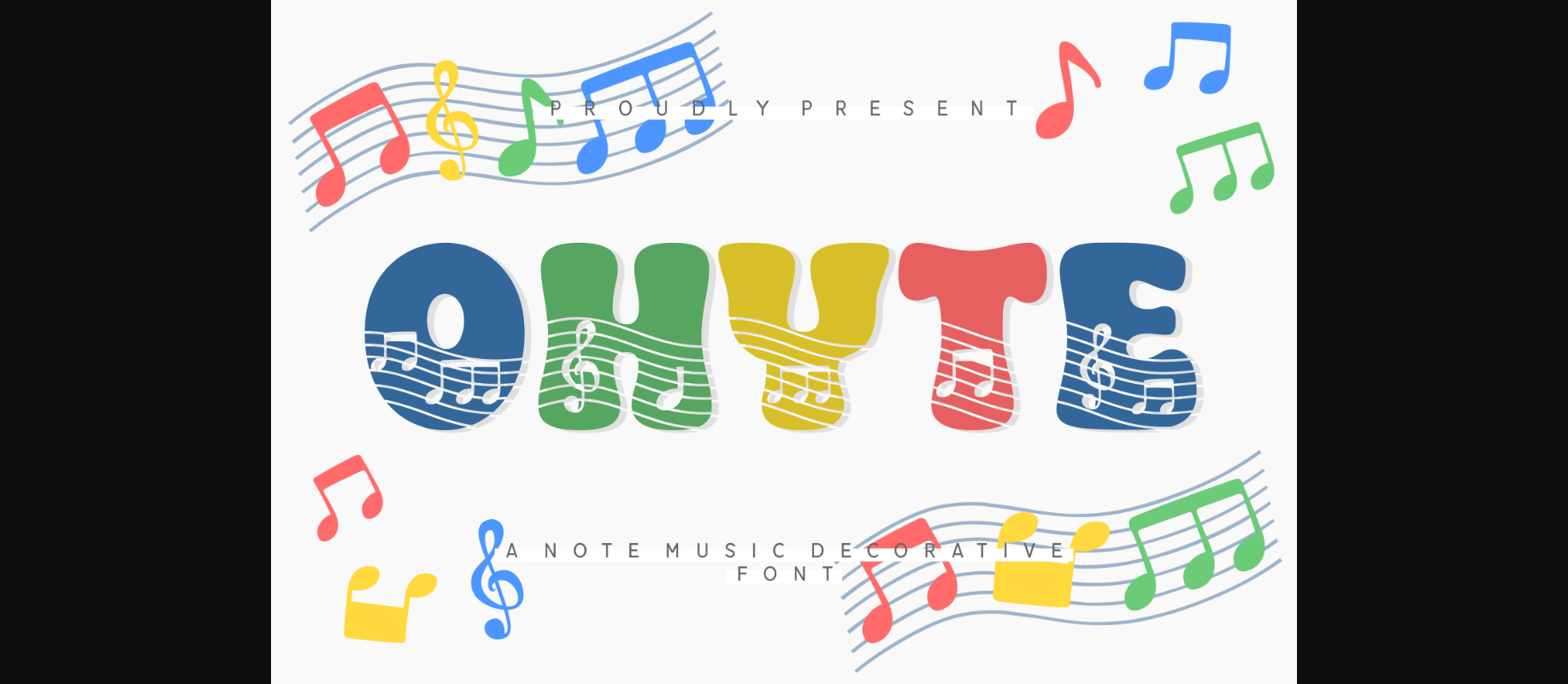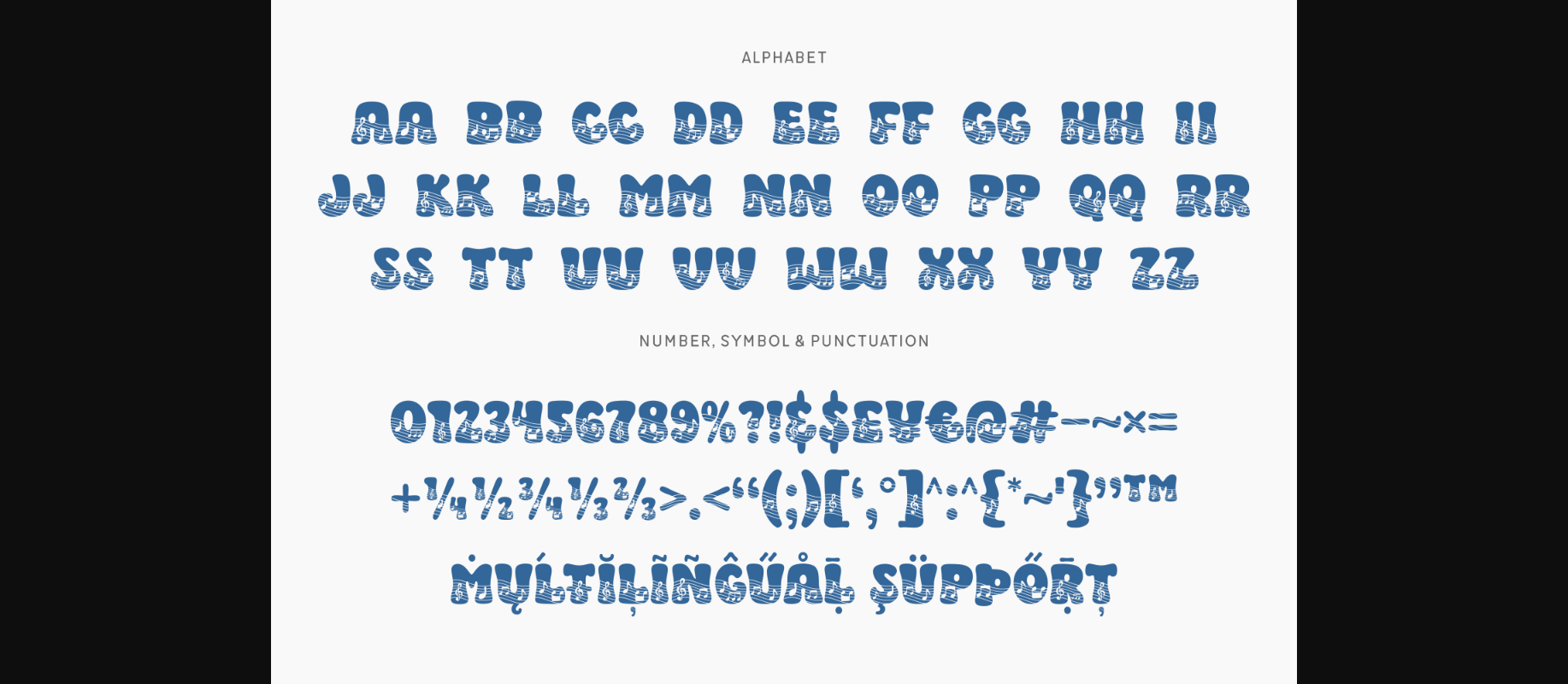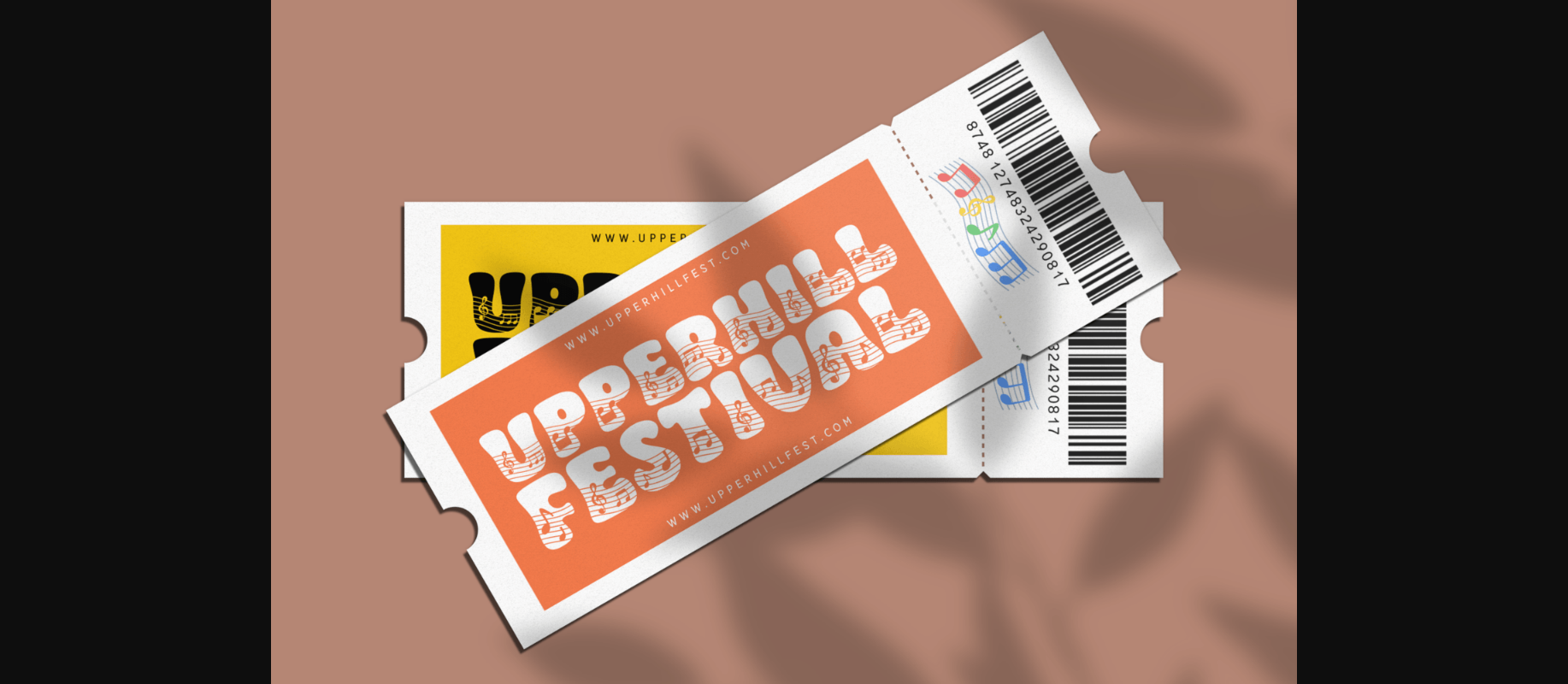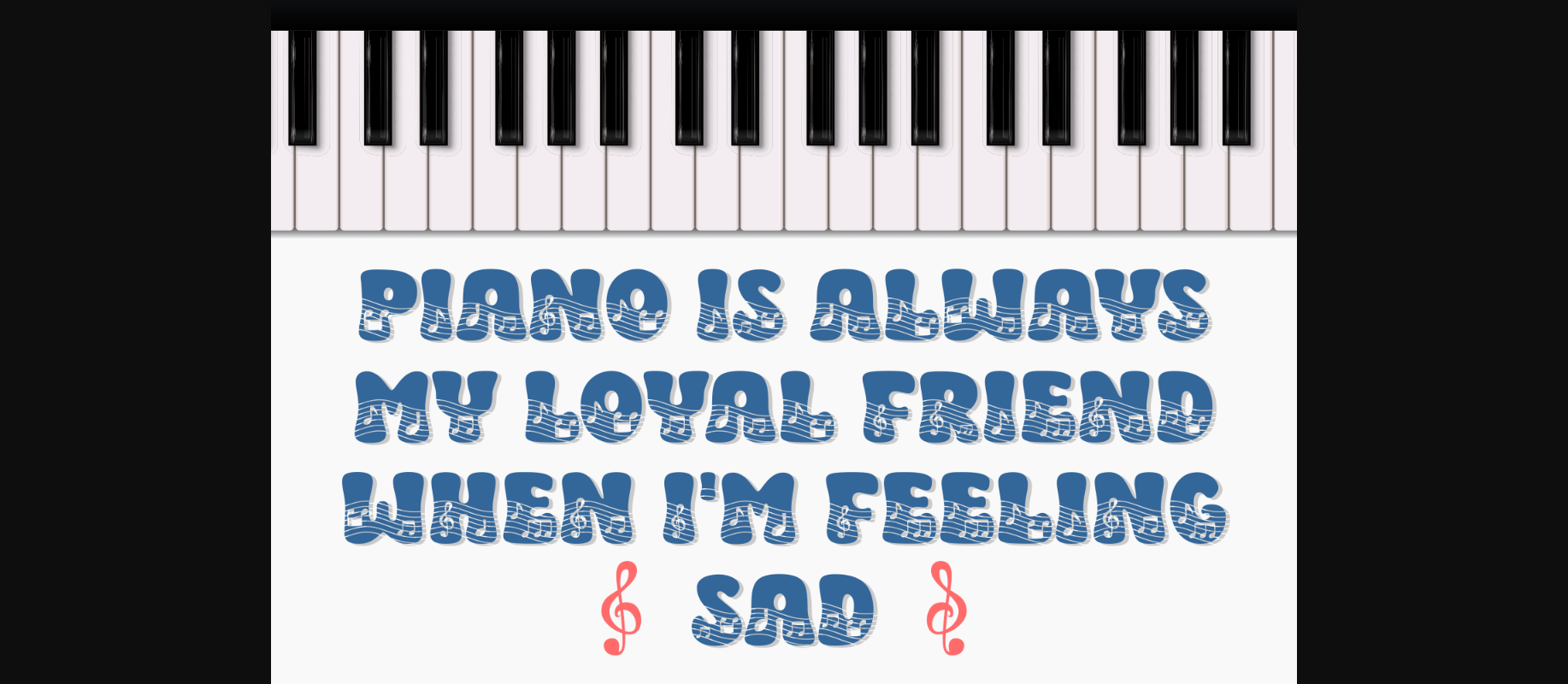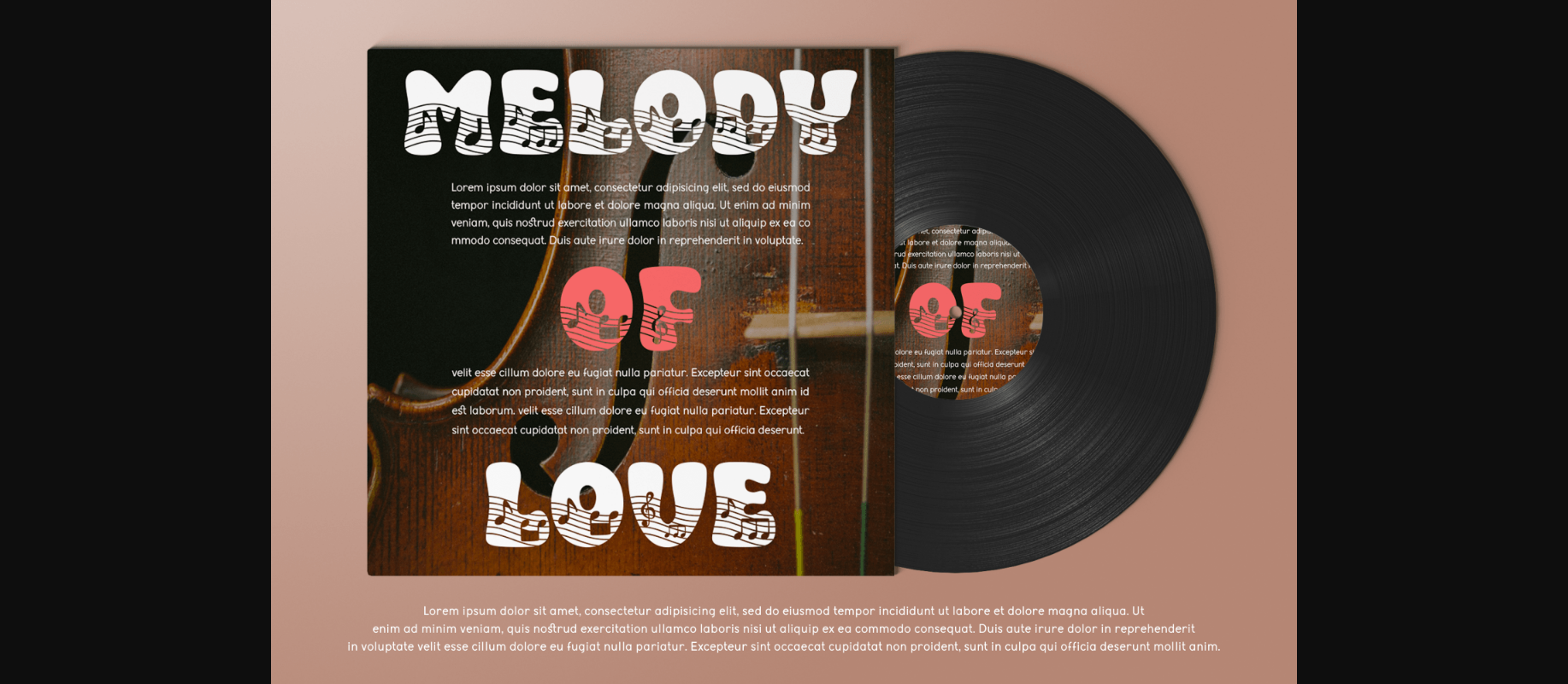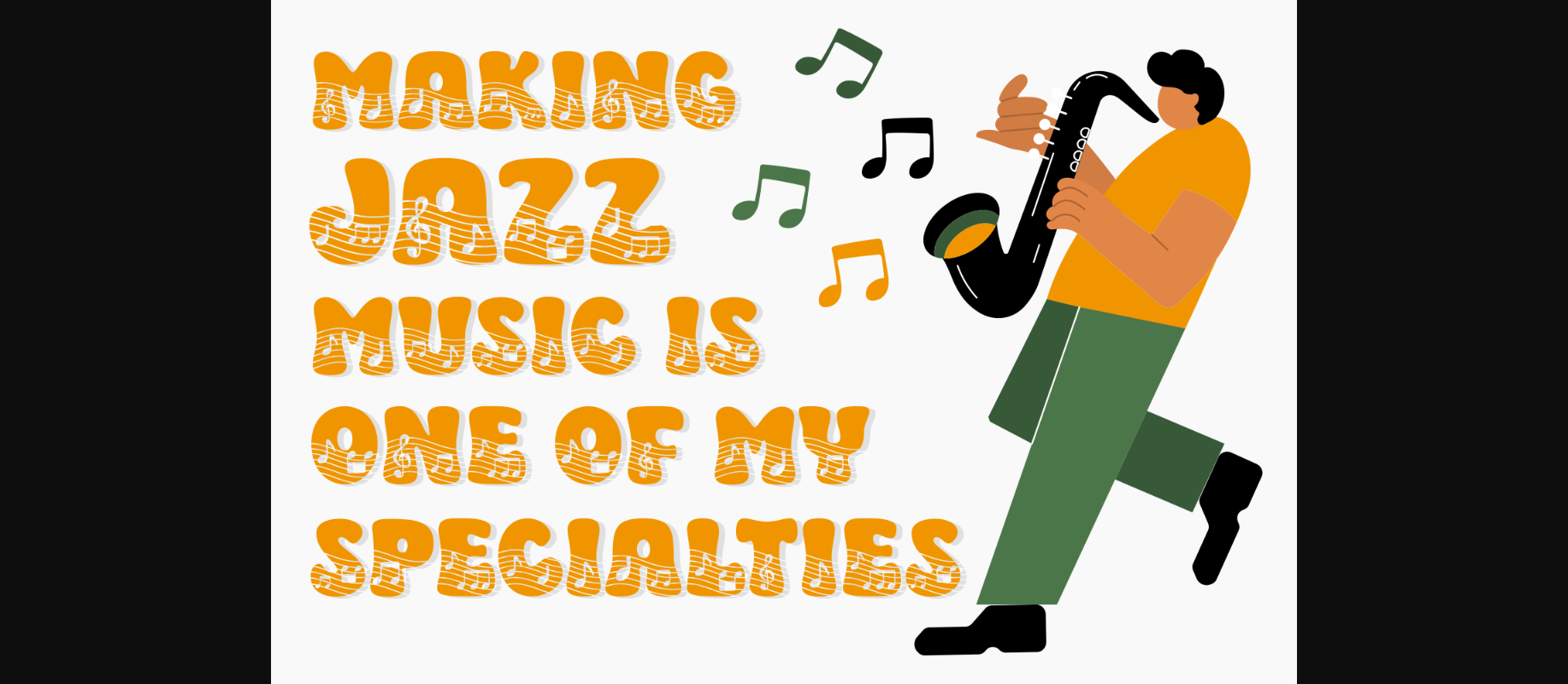
About Ohyte Font
Ohyte is a playful and whimsical display font. Let your imagination match the grooviness of this typeface! Use it for invitations, thank you cards, quotes, greeting cards, logos, business cards, and any other design.